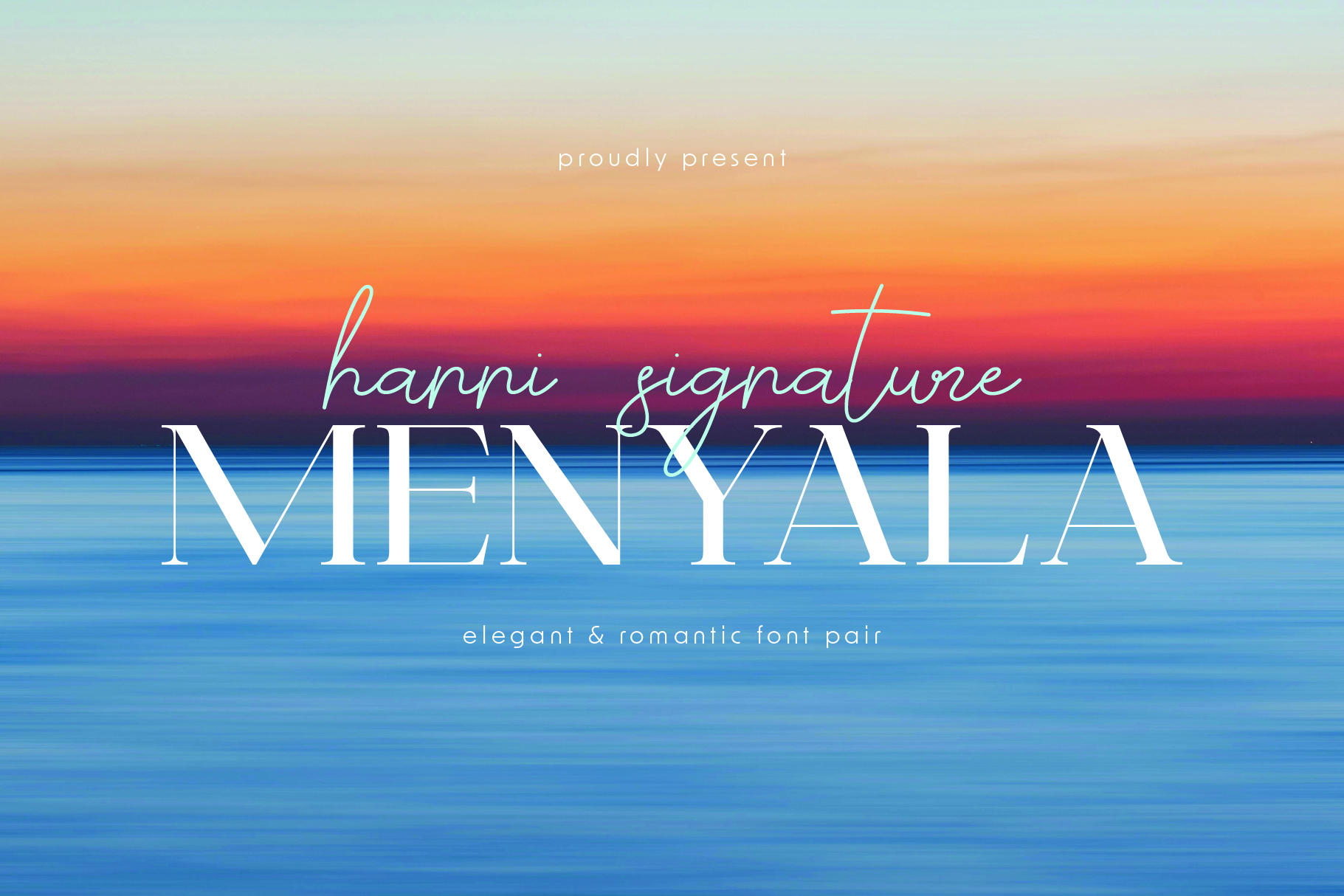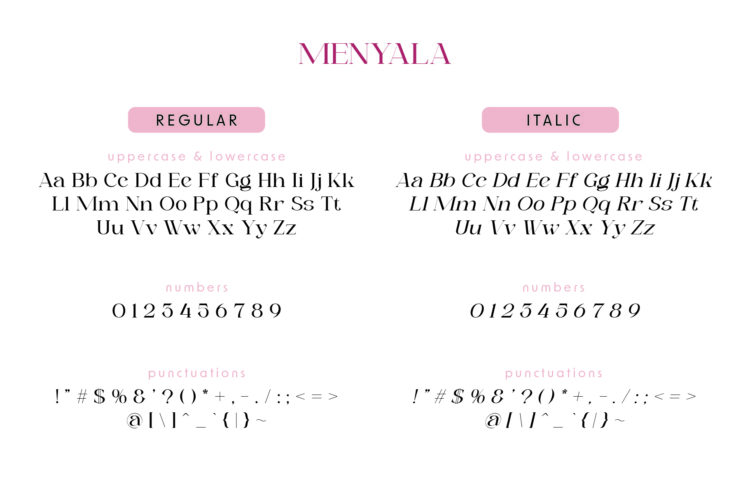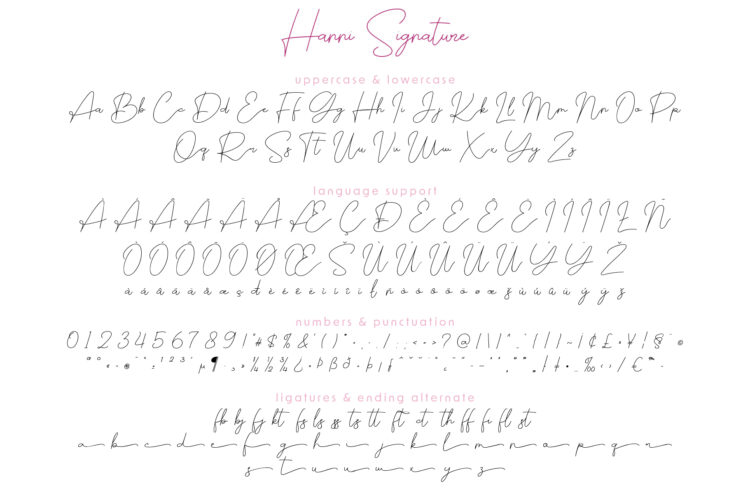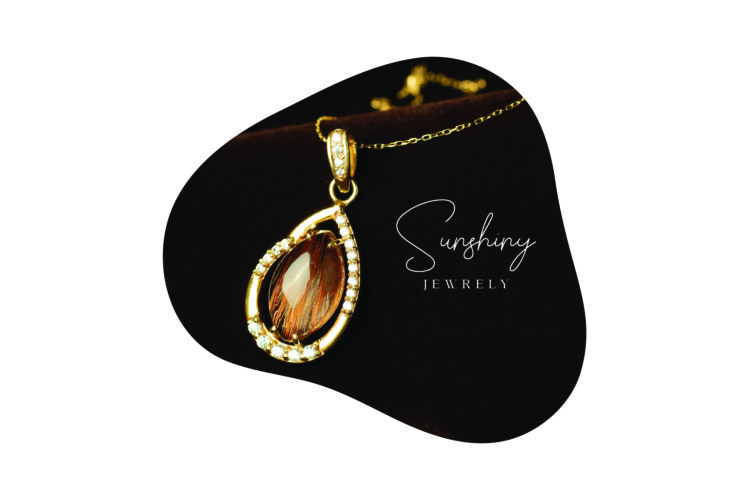
Menyala - Regular
Menyala - Italic
Hanni Signature
Hanni Signature & Menyala is an elegant and minimalist font pair. It combines a thin, feminine serif with a flowing script. This mix gives your designs a clean and refined look.
Hanni Signature, the script font, is graceful and flowing. It includes a full alphabet, numbers, symbols, ligatures, and alternate lowercase letters for stylish endings. It also supports multiple languages. Hanni Signature adds a soft, personal accent. Use it for logos, signatures, wedding invitations, packaging, and minimalist branding.
Menyala, the serif font, is thin, feminine, and elegant. It has a full alphabet, numbers, and basic symbols. Menyala is perfect for headlines, branding, editorials, and projects that need a subtle, elegant touch.
Hanni Menyala | Font Pair